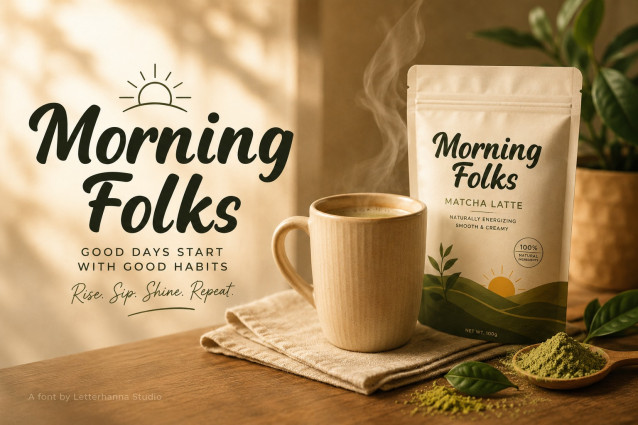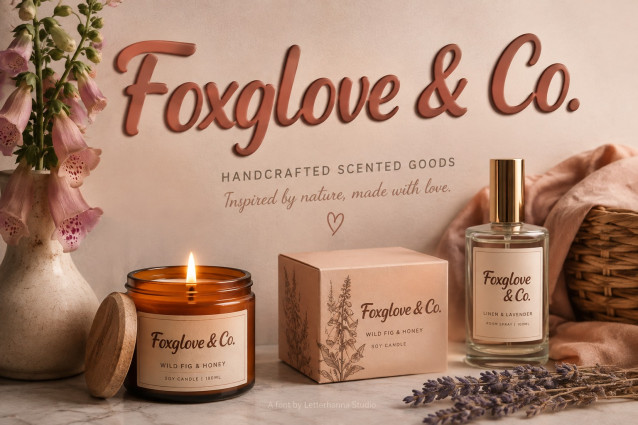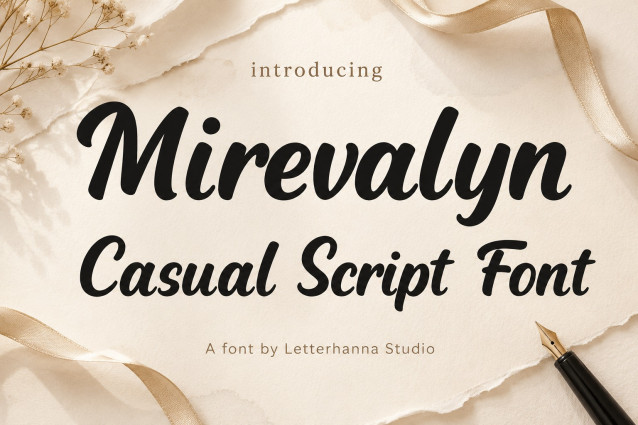
Mirevalyn is a Casual Script Font with smooth connections, bold strokes, and a relaxed handwritten rhythm. Its flowing letterforms create movement while maintaining a clean and stylish appearance.
The result is a Modern Script that feels effortless rather than overly formal. It works beautifully when a design needs warmth, charm, and a touch of spontaneity.
Mirevalyn fits naturally into logos, product packaging, café menus, apparel, social media graphics, stationery, labels, and creative branding. Its confident strokes help short words and headlines stand out without requiring heavy decoration.
It can also bring a fresh direction to Wedding Script designs. Invitations, welcome signs, menus, thank-you cards, and event stationery can gain a romantic mood without looking excessively traditional.